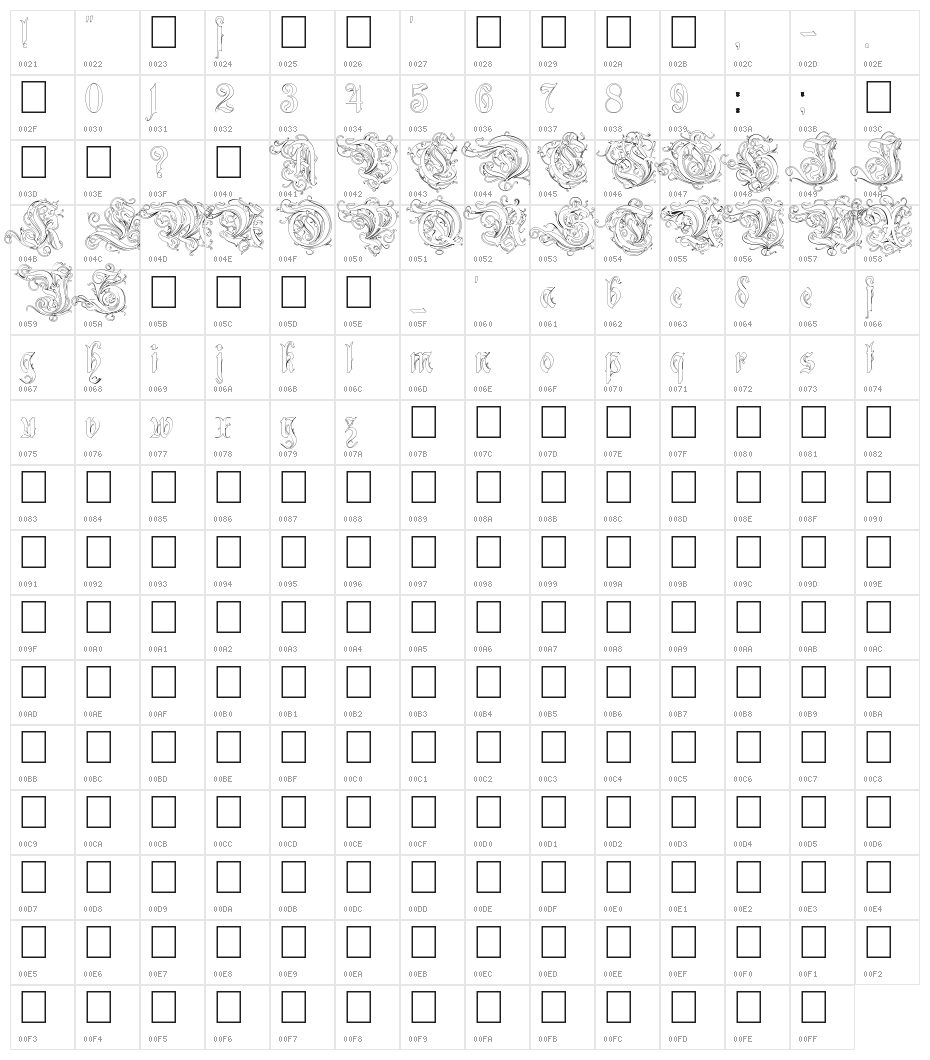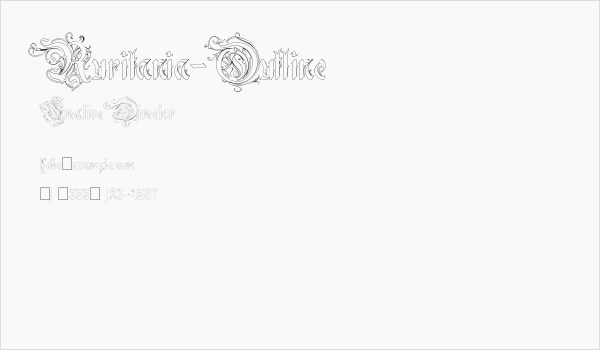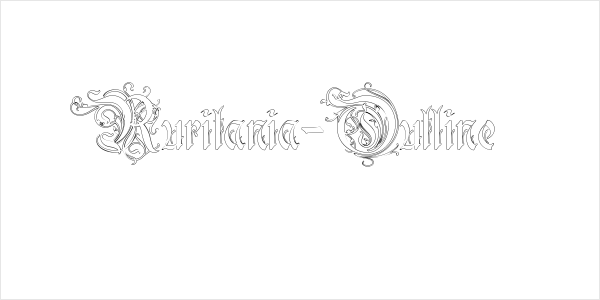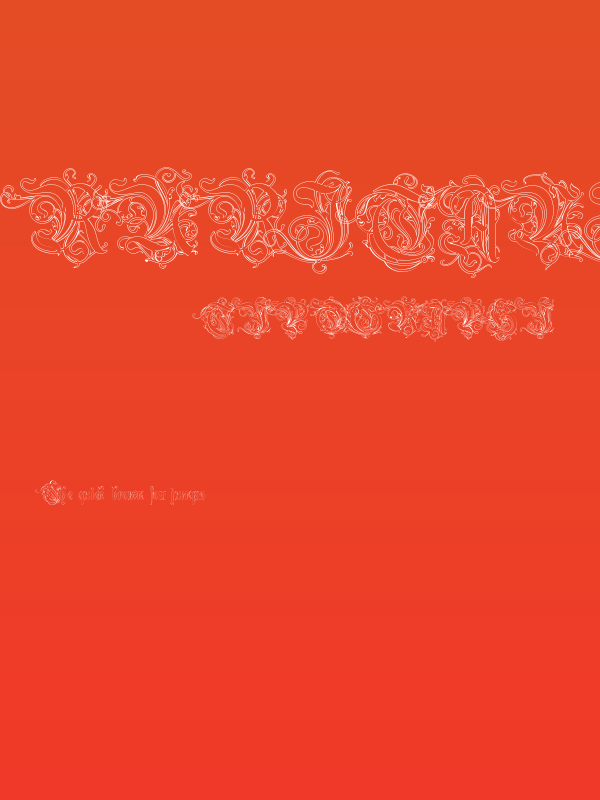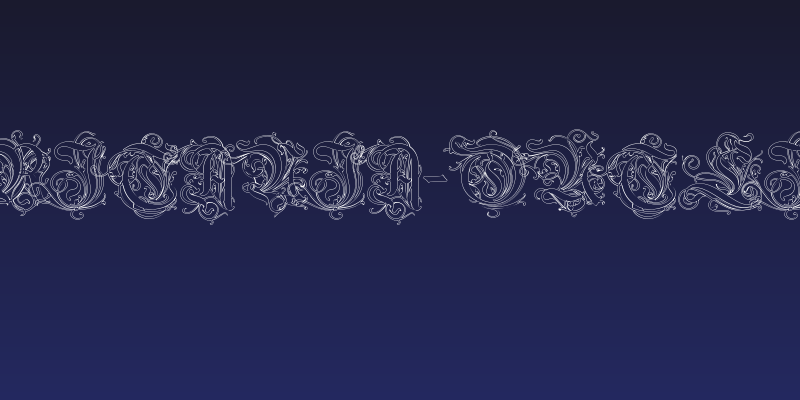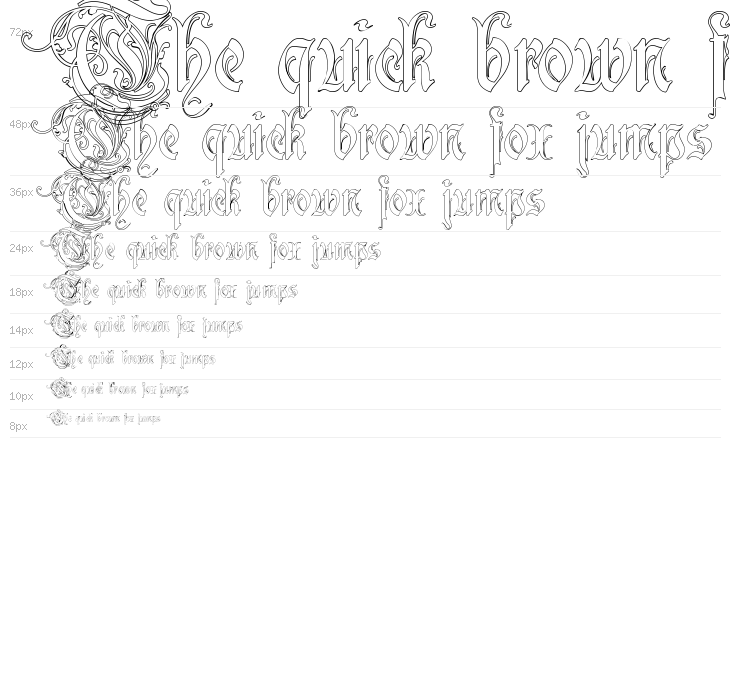
Ruritania-Outline Font
Ruritania-Outline Description
This font features an intricate and decorative outline style, reminiscent of historical and medieval script. Each character is adorned with elaborate flourishes and embellishments, creating a sense of elegance and grandeur. The uppercase letters are particularly ornate, with swirling lines and detailed curves that give them a regal appearance. The lowercase letters maintain a similar level of detail, ensuring consistency across the typeface. The numerals are equally stylized, with a unique flair that complements the overall aesthetic. This font is ideal for projects that require a touch of sophistication and historical charm.
| Overall Style | Vintage, Decorative |
| Use Case | Headlines, Logos, Decorative text |
| Proposed Projects | Ideal for wedding invitations, historical-themed posters, book covers, and branding that requires a touch of elegance and tradition. |